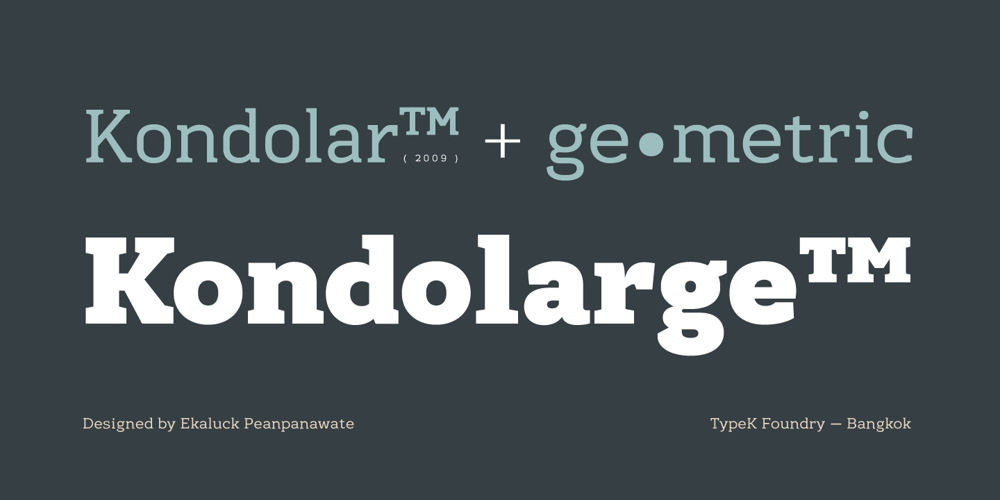
Kondolarge
Kondolarge font
Kondolarge Font Family was designed by Ekaluck Peanpanawate and published by TypeK. Kondolarge contains 36 styles and family package options. Kondolarge is a slab serif typeface developed from our successful Kondolar in 2011. Based on a simple skeleton, straight sides, gently curved horizontals and sturdy serifs, Kondolarge is a bit more geometric than the prior. It is suitable for both text and display. With a well-built character set including small caps and several numeral styles. The font comes in 9 styles, ranging from a delicate Thin to Black, with matching italics, resulting in a total of 18 weights. Kondolarge contains a set of 800 characters that support over 200 Latin-based languages.